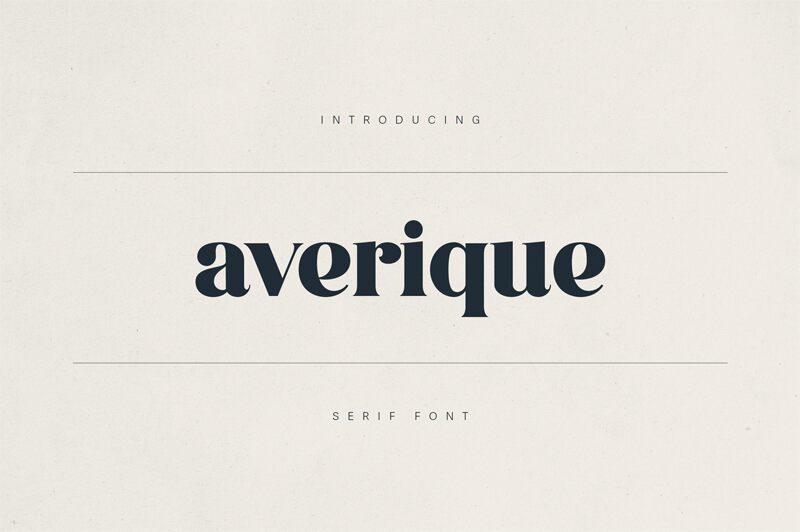
Averique font by VPcreativeshop is a free serif font with an elegant presence that's best for modern typography applications. This contemporary typeface has sleek, balanced proportions with a subtle sophistication that lends itself well when used in stylish or creative branding. Geometric influence in its letter shapes makes the font stand out where clarity is needed, keeping each glyph readable.
A naturally versatile font, Averique can be used while creating posters, flyers, brochures, business cards, or websites. It's great for corporate design applications such as letterheads and other printed marketing materials. You can count on its predictable read pattern, also, when writing product descriptions, website text, or fashion/apparel industry-related content.